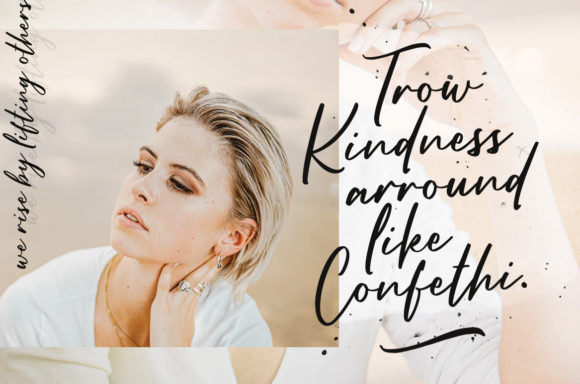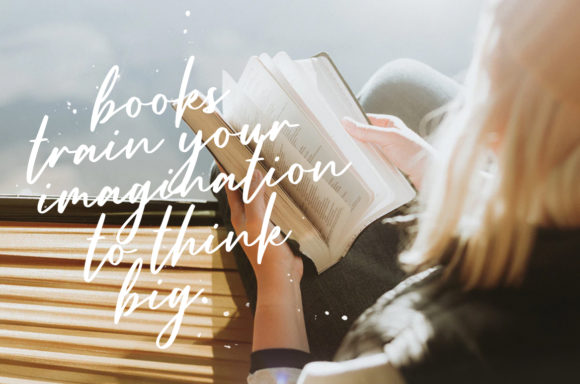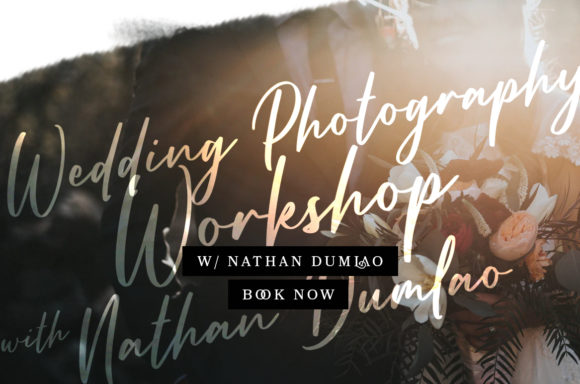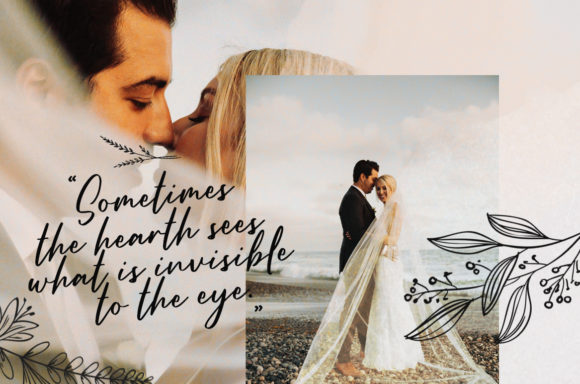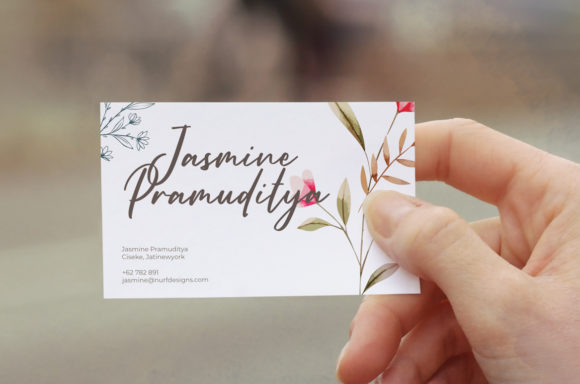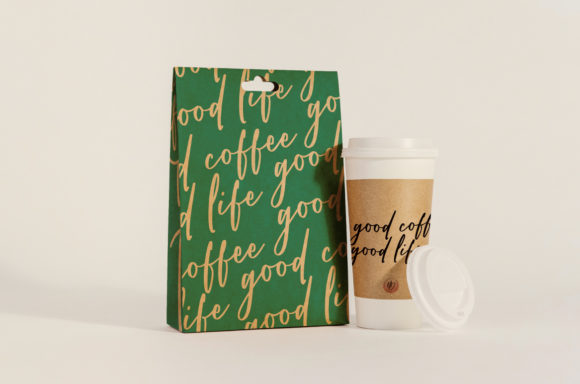
The Elegance of Better Land: A Handwritten Font That Stands Out
Have you ever been in the middle of a design project, and suddenly, you’re stuck on finding the perfect font? I recall a recent experience where a client asked for a classy, yet modern look for their brand, and I was on a mission to find that ideal font. That’s when I stumbled upon Better Land, a truly outstanding handwritten font that simplifies elegance.
An Honest Review of Better Land
Better Land has been a game-changer for my designs. Here’s what I love about it:
• ✨ Classy calligraphic influences: Better Land maintains an elegant feel that’s perfect for high-end brands or sophisticated projects.
• ✅ Contemporary and fresh: Despite its classic roots, the font feels modern and versatile, making it suitable for a wide range of applications.
• 🌈 Vibrant and playful: The font comes with a range of OpenType features, glyphs, and stylistic alternates that allow for endless creativity.
While Better Land is an excellent font, it’s not without its quirks:
• 🤔 Limited use for body text: Due to its elegant and cursive nature, Better Land might not be the best choice for lengthy paragraphs or body text.
• ⚠️ Some characters may require manual adjustment: As with any font, you might need to tweak certain characters to achieve optimal spacing and alignment.
The Story Behind Better Land
While the actual story behind Better Land might be unknown, it’s easy to imagine that the designer was inspired by the world of high-end calligraphy and modern typography. Perhaps they aimed to create a font that would bring a touch of elegance to everyday designs, making it accessible to a wide range of creatives.
Is Better Land suitable for body text? No, Better Land is best used for titles, headings, and short paragraphs due to its elegant and cursive nature.
Does Better Land support OpenType features? Yes, Better Land comes with a range of OpenType features, glyphs, and stylistic alternates that can be accessed in compatible software.
Is Better Land available in different weights or styles? While Better Land might not have multiple weights, it’s designed to be versatile and can be used in various contexts with creative styling.